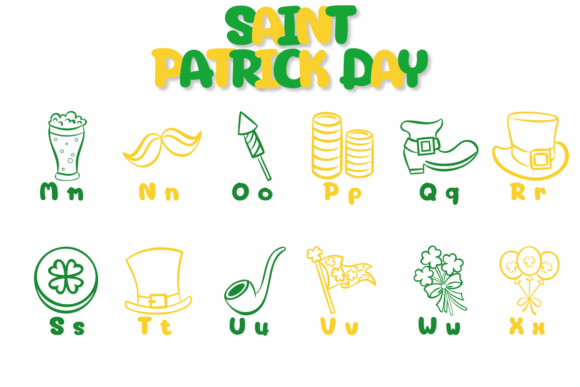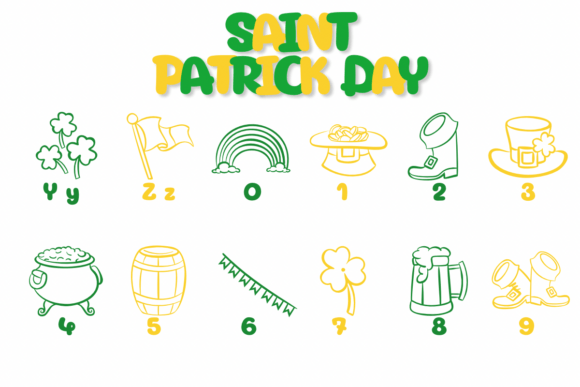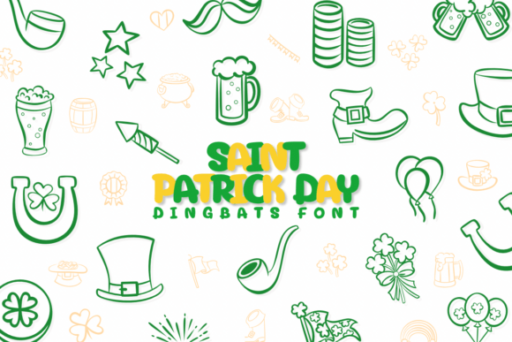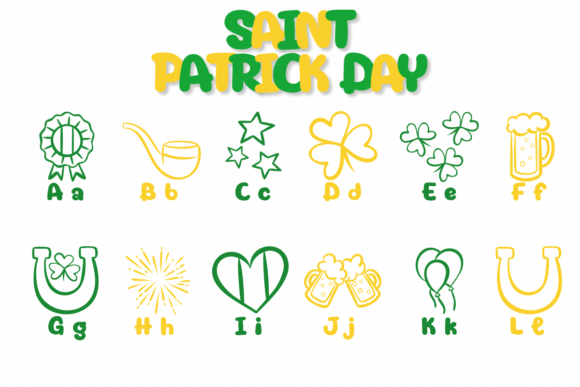
Saint Patrick Day Font
Saint Patrick Day Dingbats Font includes festive Irish-themed icons in its collection. Each letter of the Saint Patrick Day Dingbats Font contains shamrocks together with leprechaun hats, beer mugs and pots of gold. Design party invitations as well as make holiday decor elements using this font while creating attention-grabbing thematic designs. These design elements will brighten up your creative work with their Irish style.
Saint Patrick Day Font is a Decorative Fonts font that brings a professional and versatile look to your projects. Saint Patrick Day Dingbats Font includes festive Irish-themed icons in its collection.